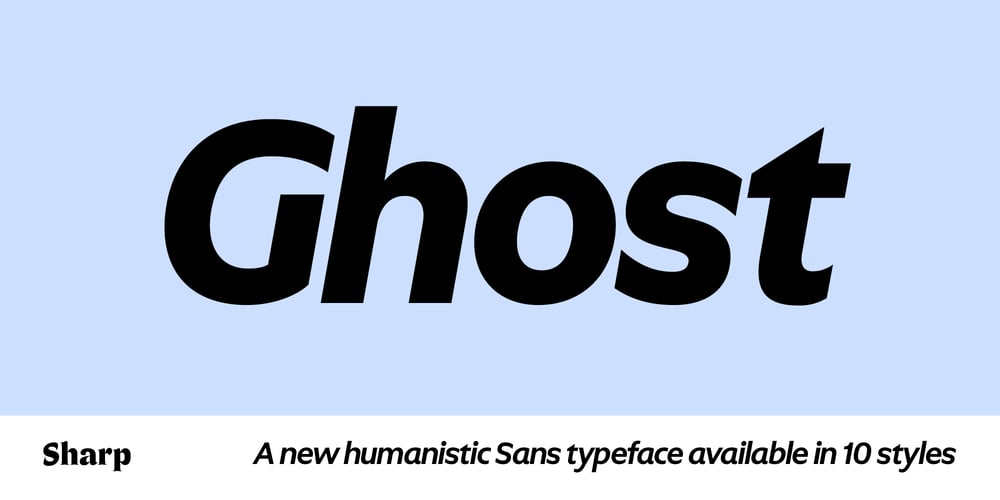
Ghost
Ghost font
Ghost Font Family was designed by Sharp Type and published by Sharp Type. Ghost contains 10 styles and family package options. Ghost is a new normal: a resurrection of the Humanist sans serif designed by Lucas Sharp that works backwards from the genre’s origin in Roman inscriptional lettering towards a new ordinary. Its sturdy and adaptable construction sits in perfect tension with the characteristic flair that has come to define Lucas’ sans serif designs. With Ghost, normalcy is not a reduction, nor a simple description, but rather a set of complex, deeply nuanced design decisions that make it the ideal font choice for singular applications, be it bold headlines or beautiful text settings. With its multiple optical sizes, Ghost also works as a standalone type system, providing a consistent and warm brand voice for agencies and studios, or high-concept magazines and design manuals through an endlessly scalable number of applications.